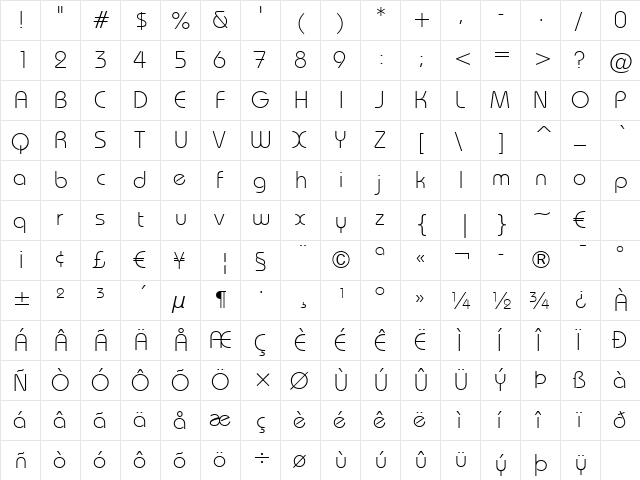
UVN Bai Sau Nhe Regular
Design Context for UVN Bai Sau Nhe Typeface
UVN Bai Sau Nhe is a composed and adaptable typeface that performs quietly and consistently across a wide range of design contexts.